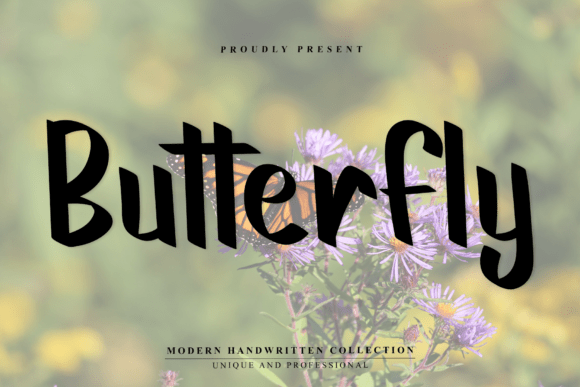
The Perfect Font for a Playful Touch
Who hasn’t felt that rush of excitement when brainstorming a new project? The ideas flow, and your creative juices are overflowing. You envision a vibrant, eye-catching design that captures the essence of your message. That’s exactly what the Butterfly Font is designed to do – add a playful, carefree touch to your work.
Characterized by its bold brush texture and slanted rhythm, the Butterfly Font is perfect for conveying a sense of spontaneity and friendliness. As a designer, you’ll appreciate its unique blend of roughness and bounce, which gives it an authentic, hand-painted feel that’s full of character. Whether you’re working on a youth-oriented branding project or creating social media posts, this font is sure to deliver your message with fun and flair.
With the Butterfly Font in your toolkit, you’ll be able to create designs that stand out from the crowd and leave a lasting impression.
Key Features of Butterfly Font
- Font Family: Butterfly is a script font family designed for creative and elegant purposes.
- Font Size: Butterfly Font is available in multiple font sizes, ranging from 12 to 72 points, making it suitable for various design applications.
- Resolution: The font is designed to be scalable, allowing for high-quality display at various resolutions, including 72 dpi, 144 dpi, and 300 dpi.
- Unique Characteristics: The font features beautiful, hand-drawn letterforms with intricate details, making it perfect for creating eye-catching headlines and titles.
Butterfly Font Review
Overall, I’d say the Butterfly Font is a unique and eye-catching addition to any design project. Here’s what I like about it:
- ✨ The playful, whimsical feel of the font is perfect for creating a lighthearted and approachable atmosphere in your design.
- ✨ The varying line widths and irregular letterforms give the font a hand-drawn feel that’s both charming and authentic.
- ✨ The font is highly legible, even at smaller sizes, making it suitable for a wide range of applications, from body text to headlines.
- ⚠️ The font’s irregularities can make it difficult to use for formal or professional projects, where a more polished and traditional look is required.
- ⚠️ The font may not be suitable for projects that require a lot of text or complex layouts, as the irregularities can make it harder to read and navigate.
Overall, I’d recommend the Butterfly Font for projects that require a playful and creative touch. Just be mindful of its limitations and use it in contexts where its unique character can shine.
Getting the Most Out of Butterfly Font
To get the most out of the Butterfly font, use it for titles and headings where you want to add a touch of elegance and sophistication. Avoid using it for body text, as it may be difficult to read in smaller font sizes.
The Butterfly font is commonly used in:
- Formal event invitations and announcements
- Luxury brand logos and marketing materials
- High-end packaging and labels
Alternatives to Butterfly Font for Designers
Great Vibes is a modern, elegant script font that is ideal for use in branding, logos, and titles. Its flowing lines and subtle flourishes make it perfect for creating a sophisticated and luxurious feel. It is a great alternative to Butterfly Font for designers who want to convey a sense of high-end quality and style.
Compared to Butterfly Font, Great Vibes has a more refined and polished look, with a greater emphasis on elegance and sophistication. While Butterfly Font has a playful, whimsical feel, Great Vibes is more serious and refined.
Carolyna Pro is a stylish, modern script font that is perfect for use in branding, logos, and titles. Its unique blend of elegance and playfulness makes it ideal for designers who want to create a unique and eye-catching look. It is a great alternative to Butterfly Font for designers who want to add a touch of sophistication and whimsy to their designs.